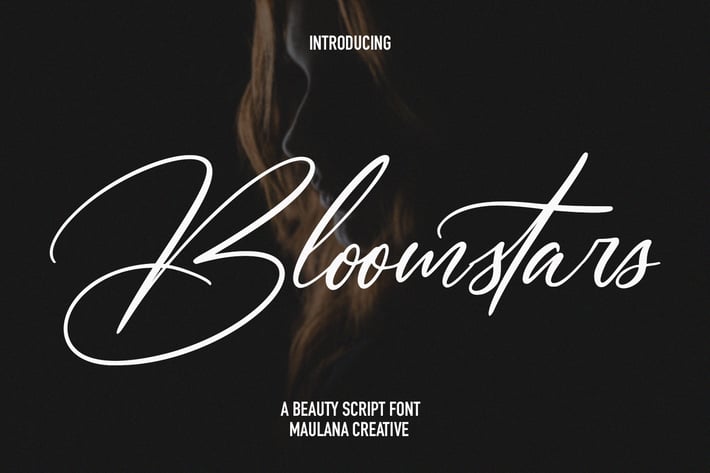
Bloomstars Signature Script Font
Bloomstars is a modern beauty signature script font. With high contrast stroke, fun character with a bit of ligatures and stylistic alternates. To give you an extra creative work. Bloomstars font support multilingual more than 100+ language. This font is good for logo design, Social media, Movie Titles, Books Titles, a short text even a long text letter and good for your secondary text font with sans or serif. Make a stunning work with Bloomstars font.